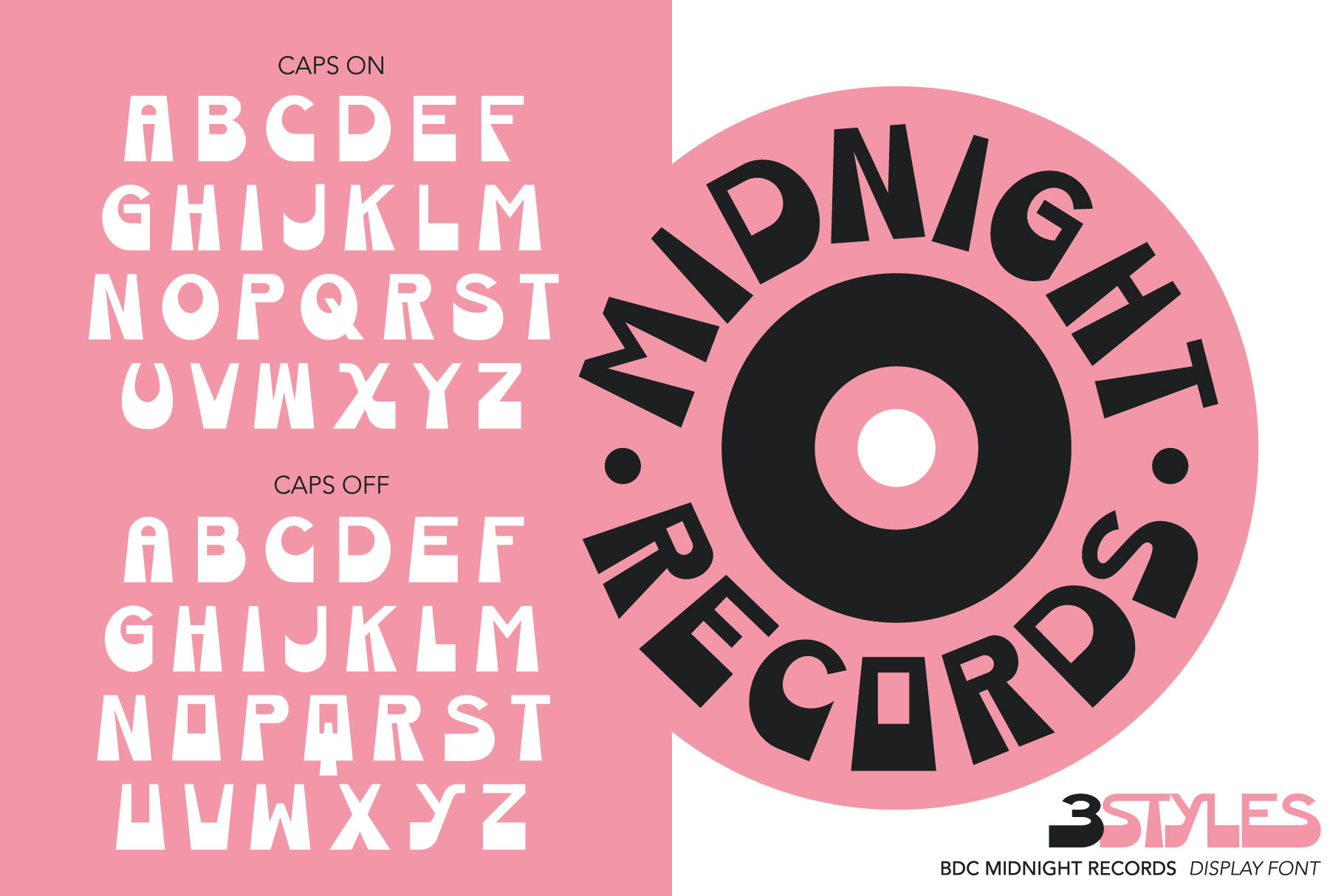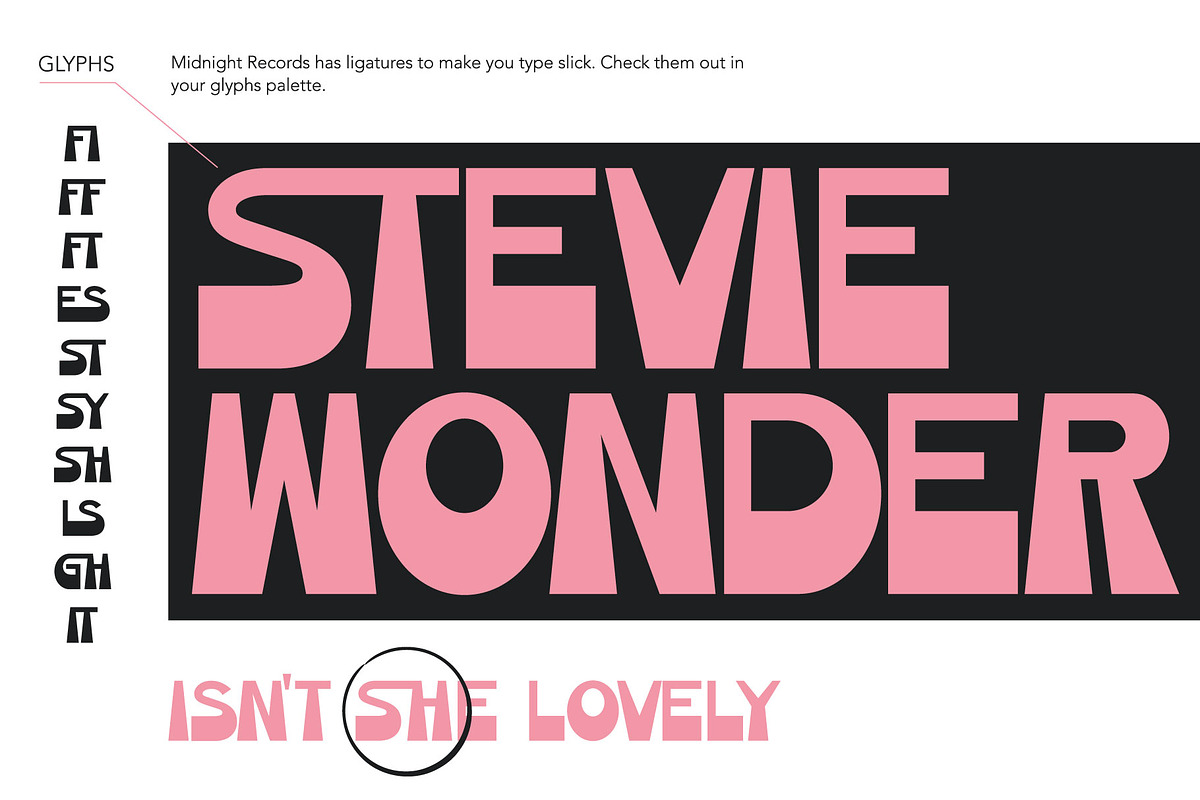
Midnight Records Display Font
Midnight Records is fun, retro, and funky. It comes with alternate letters that can really change up the vibes to your design. Includes 3 styles : regular, thin, and round.